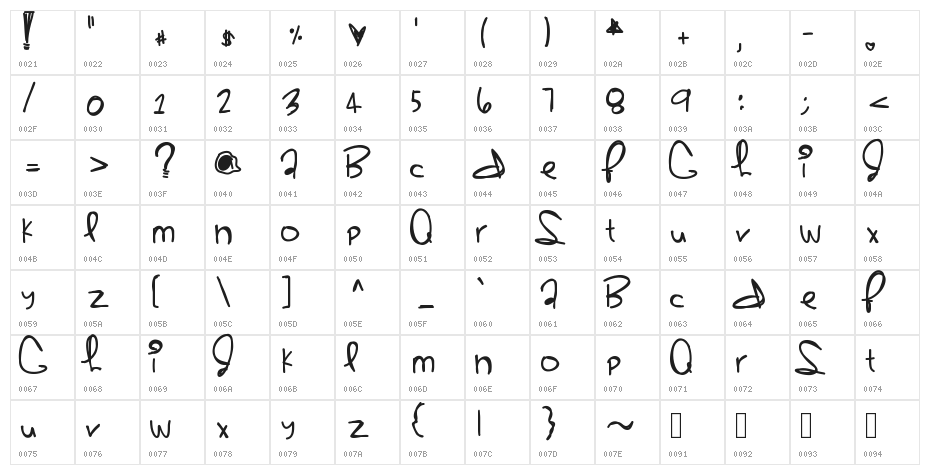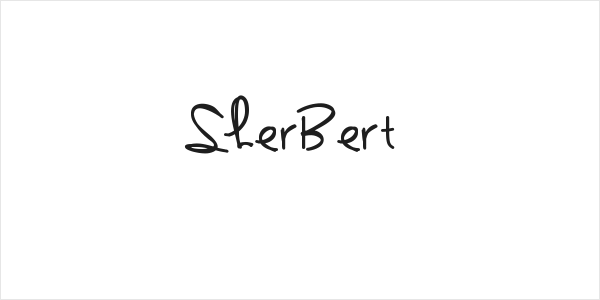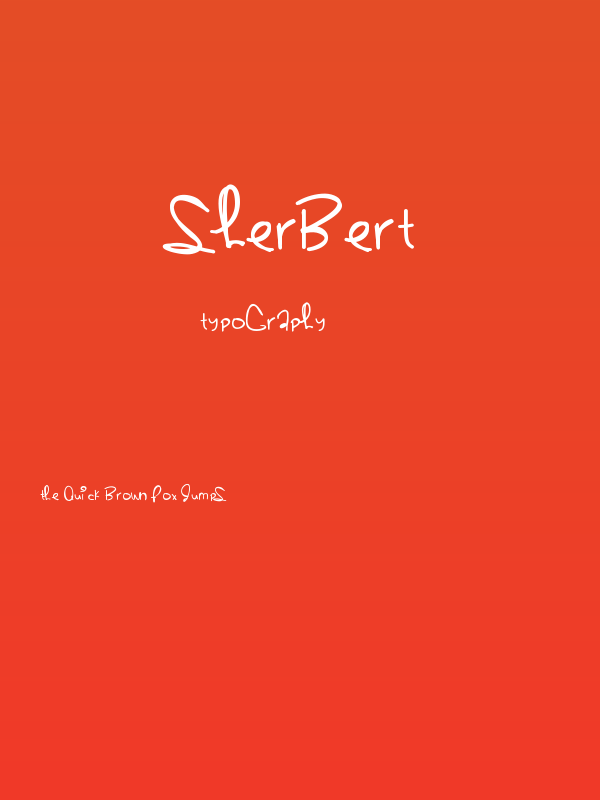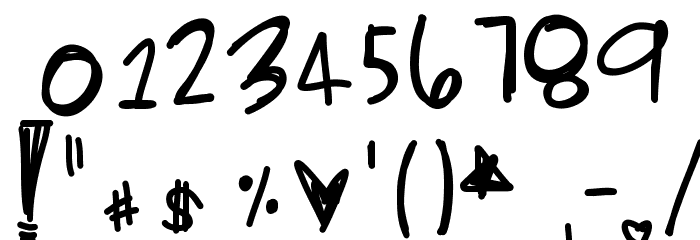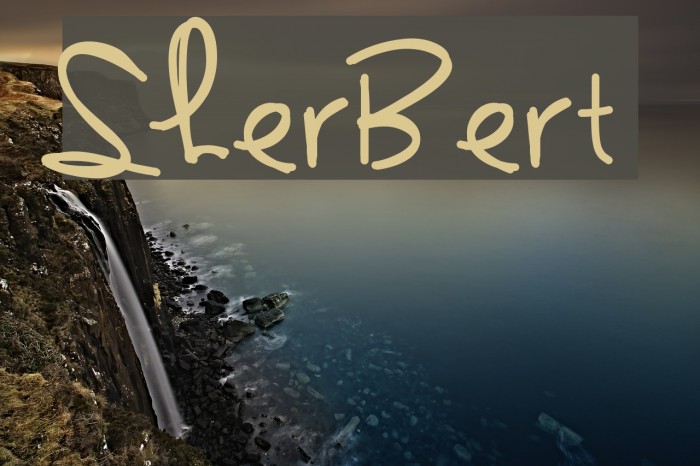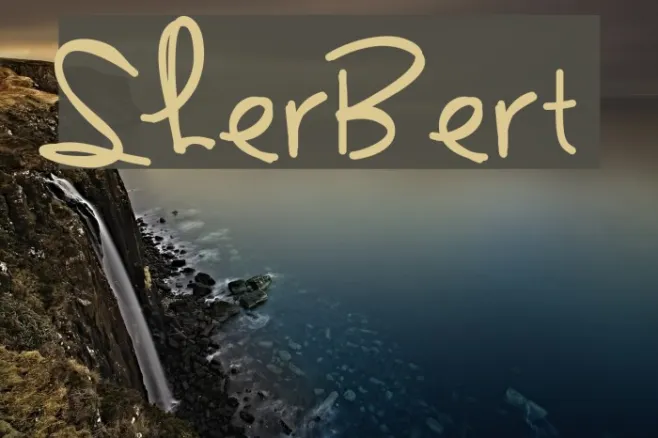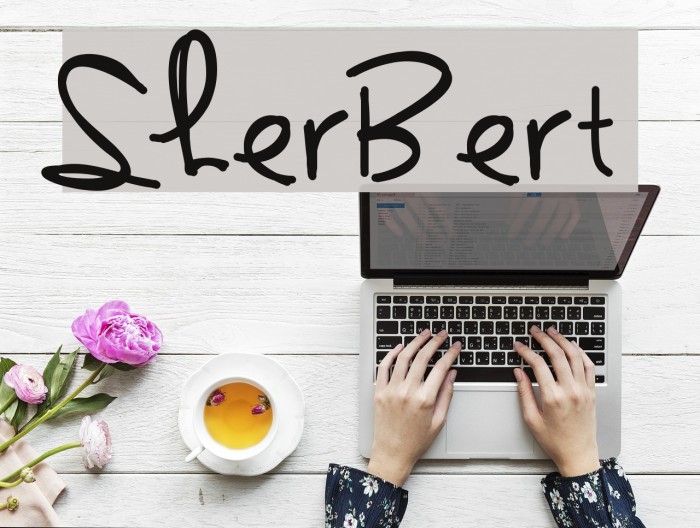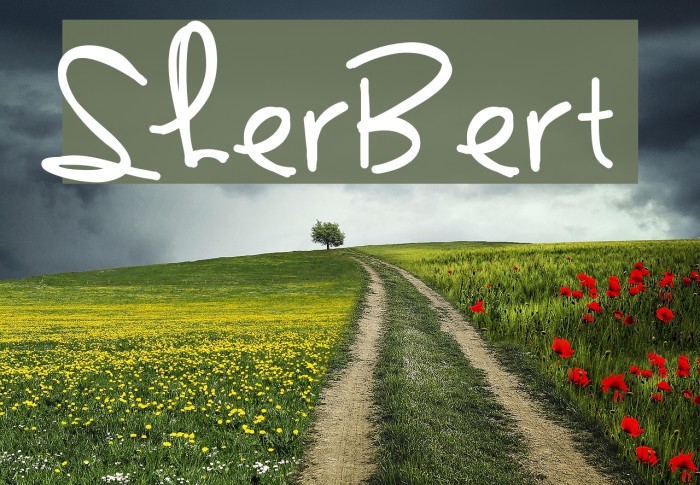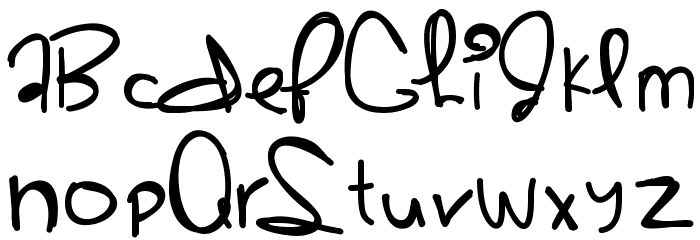
Sherbert Font
Sherbert Description
This playful and energetic font features a handwritten style with a casual and informal appearance. The letters are characterized by their smooth, flowing lines and slightly irregular shapes, giving it a personal and approachable feel. The uppercase and lowercase letters maintain a consistent style, with some letters exhibiting unique flourishes that add to its charm. The numerals and special characters are equally expressive, complementing the overall aesthetic. This font is well-suited for projects that require a touch of whimsy and creativity.
| Proposed Projects | Ideal for greeting cards, children's books, playful branding, and creative social media graphics. |